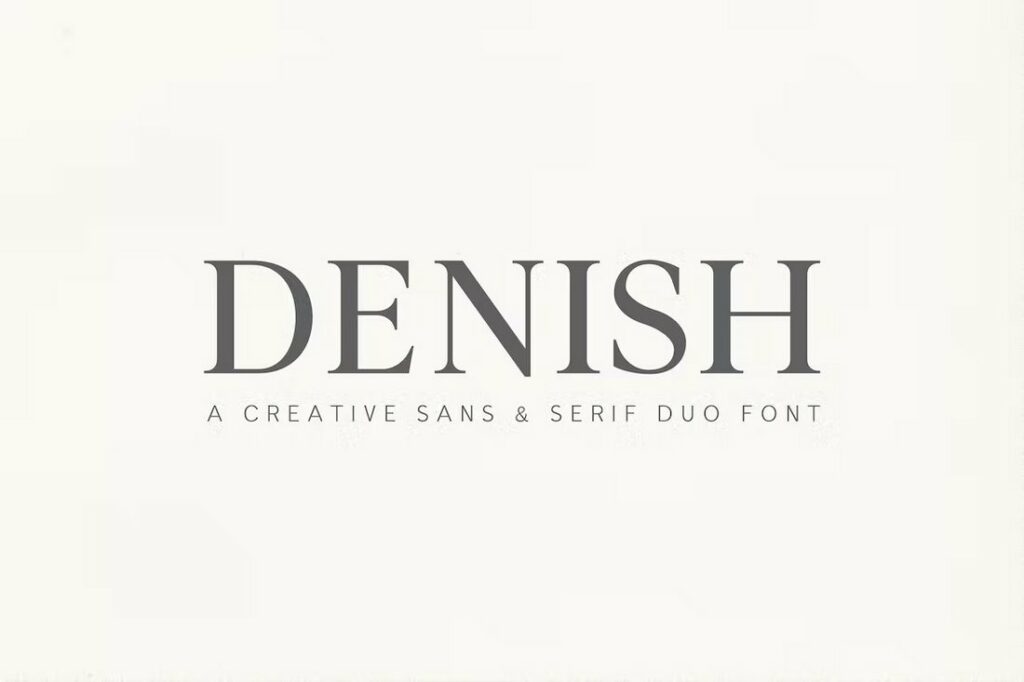
Best Font For Contract Documents . what is the best font for legal documents? what’s the best legal document font size and style? the choice of font in legal documents is a crucial aspect that significantly influences readability, professionalism, and compliance. the best font for a contract should not only be legible but also convey professionalism and seriousness,. the best fonts to use for legal documents are clean, professional, easy to read on any screen, and representative of.
what is the best font for legal documents? what’s the best legal document font size and style? the choice of font in legal documents is a crucial aspect that significantly influences readability, professionalism, and compliance. the best fonts to use for legal documents are clean, professional, easy to read on any screen, and representative of. the best font for a contract should not only be legible but also convey professionalism and seriousness,.
Font For Contracts Choose Your Legal Edge
Best Font For Contract Documents the choice of font in legal documents is a crucial aspect that significantly influences readability, professionalism, and compliance. the choice of font in legal documents is a crucial aspect that significantly influences readability, professionalism, and compliance. what’s the best legal document font size and style? the best fonts to use for legal documents are clean, professional, easy to read on any screen, and representative of. what is the best font for legal documents? the best font for a contract should not only be legible but also convey professionalism and seriousness,.
20+ Best Fonts for Contracts & Legal Documents Design Shack Best Font For Contract Documents the best font for a contract should not only be legible but also convey professionalism and seriousness,. the choice of font in legal documents is a crucial aspect that significantly influences readability, professionalism, and compliance. what is the best font for legal documents? what’s the best legal document font size and style? the best fonts. Best Font For Contract Documents.
Font For Contracts Choose Your Legal Edge Best Font For Contract Documents the choice of font in legal documents is a crucial aspect that significantly influences readability, professionalism, and compliance. the best fonts to use for legal documents are clean, professional, easy to read on any screen, and representative of. what’s the best legal document font size and style? the best font for a contract should not only. Best Font For Contract Documents.
20+ Best Fonts for Contracts & Legal Documents Design Hawks Best Font For Contract Documents what’s the best legal document font size and style? the best font for a contract should not only be legible but also convey professionalism and seriousness,. what is the best font for legal documents? the choice of font in legal documents is a crucial aspect that significantly influences readability, professionalism, and compliance. the best fonts. Best Font For Contract Documents.
What is the Most Effective Font for Legal Documents? MyCase Best Font For Contract Documents the best font for a contract should not only be legible but also convey professionalism and seriousness,. what is the best font for legal documents? what’s the best legal document font size and style? the choice of font in legal documents is a crucial aspect that significantly influences readability, professionalism, and compliance. the best fonts. Best Font For Contract Documents.
20+ Best Fonts for Contracts & Legal Documents Design Hawks Best Font For Contract Documents the choice of font in legal documents is a crucial aspect that significantly influences readability, professionalism, and compliance. the best fonts to use for legal documents are clean, professional, easy to read on any screen, and representative of. the best font for a contract should not only be legible but also convey professionalism and seriousness,. what’s. Best Font For Contract Documents.
20+ Best Fonts for Contracts & Legal Documents Design Hawks Best Font For Contract Documents what’s the best legal document font size and style? the choice of font in legal documents is a crucial aspect that significantly influences readability, professionalism, and compliance. the best fonts to use for legal documents are clean, professional, easy to read on any screen, and representative of. the best font for a contract should not only. Best Font For Contract Documents.
20+ Best Fonts for Contracts & Legal Documents Design Shack Best Font For Contract Documents the best font for a contract should not only be legible but also convey professionalism and seriousness,. what’s the best legal document font size and style? what is the best font for legal documents? the choice of font in legal documents is a crucial aspect that significantly influences readability, professionalism, and compliance. the best fonts. Best Font For Contract Documents.
20+ Best Fonts for Contracts & Legal Documents Design Hawks Best Font For Contract Documents the best font for a contract should not only be legible but also convey professionalism and seriousness,. the choice of font in legal documents is a crucial aspect that significantly influences readability, professionalism, and compliance. what is the best font for legal documents? what’s the best legal document font size and style? the best fonts. Best Font For Contract Documents.
Best fonts for legal documents a complete guide Best Font For Contract Documents what is the best font for legal documents? the best fonts to use for legal documents are clean, professional, easy to read on any screen, and representative of. the choice of font in legal documents is a crucial aspect that significantly influences readability, professionalism, and compliance. what’s the best legal document font size and style? . Best Font For Contract Documents.